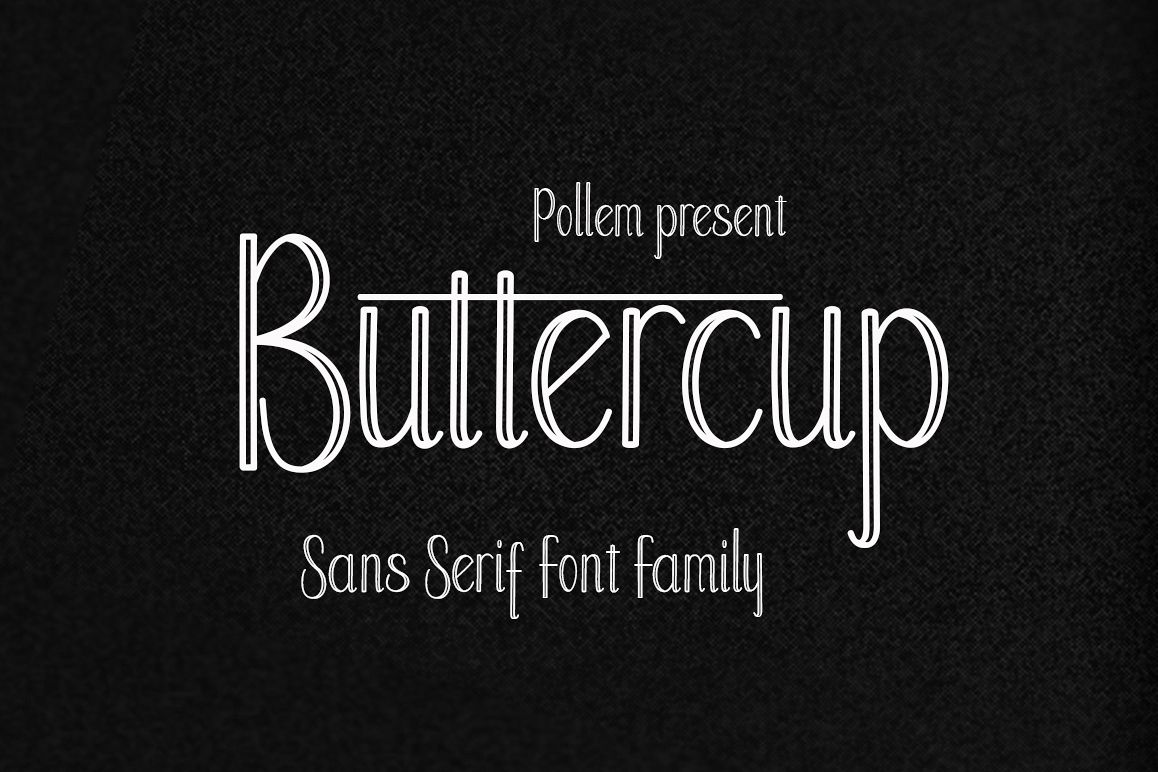
Buttercup Font Family
Buttercup Font Family is new sans serif font has a sleek typeface, font is very simple and easy to manipulate: logo, slogan and made in advertising messages.